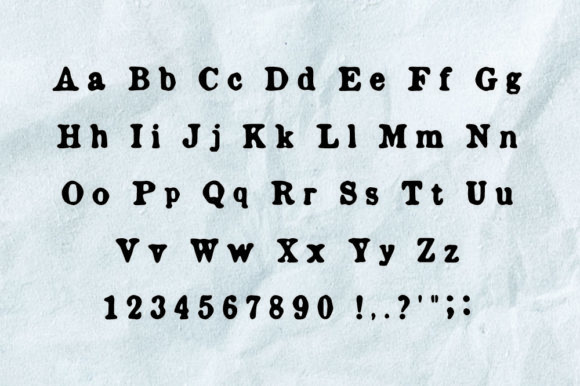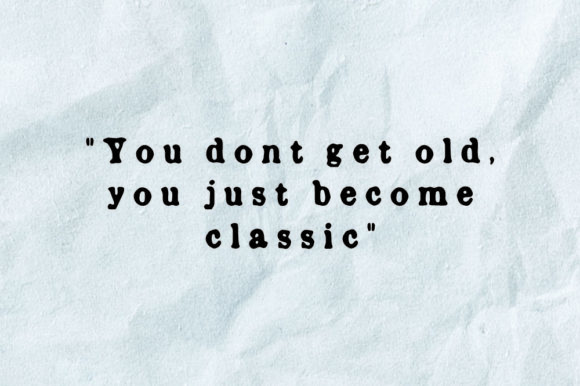
The Perfect Blend of Vintage Charm and Modern Elegance
Have you ever been working on a design project, flipping through font styles, and suddenly, one catches your eye? That’s exactly what happened to me when I stumbled upon the 1874 Font. Its unique blend of vintage charm and modern elegance had me hooked from the very first glance.
The 1874 Font is a display font that exudes a sense of nostalgia and sophistication, making it perfect for posters, flyers, and prints. Its versatility allows designers to experiment with different styles and layouts, unlocking endless possibilities for creative expression. Whether you’re looking to add a touch of vintage flair or create a bold statement, the 1874 Font is an invaluable asset for designers.
With its distinctive character and wide range of applications, the 1874 Font is a valuable addition to any designer’s toolkit. So, what are you waiting for? Dive into the world of 1874 Font and discover the incredible impact it can have on your designs.
1874 Font Key Features
- Font Family: 1874 Font is a serif font family designed to evoke a classic, elegant feel.
- Font Size: 1874 Font comes in a range of sizes, including 6 weights from Light to Bold, and 3 widths (Regular, Condensed, and Extended).
- Unique Characteristics: 1874 Font features a distinctive, hand-drawn aesthetic with subtle flair and flair-like details, making it suitable for high-end publications, luxury brands, and creative projects.
- Language Support: Offers comprehensive language support, including Latin, Cyrillic, and Greek alphabets, as well as a range of diacritical marks and special characters.
Designer Review: 1874 Font
As a designer, I was excited to dive into the 1874 Font and see what it had to offer. Overall, I was pleasantly surprised by the font’s charm and character.
- Unique aesthetic: The 1874 Font has a distinct, vintage vibe that’s perfect for projects that need a touch of elegance.
- High-quality glyphs: The font includes a wide range of characters, including ligatures and alternates, which adds to its overall charm.
- Easy to read: Despite its vintage look, the font is surprisingly easy to read, making it a great choice for body text.
- Not ideal for sans-serif projects: The 1874 Font is a serif font, so it may not be the best choice for projects that require a clean, sans-serif look.
- May be too ornate for some designs: While the font’s unique aesthetic is a major selling point, it may be too much for some designs.
Overall, I think the 1874 Font is a great choice for designers who want to add a touch of elegance and sophistication to their projects. While it may have some limitations, its unique aesthetic and high-quality glyphs make it a valuable addition to any designer’s toolkit.
Getting the Most Out of 1874 Font
For optimal results, use the 1874 Font in conjunction with a serif or sans-serif font to create visual balance. Experiment with different font sizes and colors to achieve a unique look.
The 1874 Font is suitable for a variety of designs, including:
- Wedding invitations and event materials